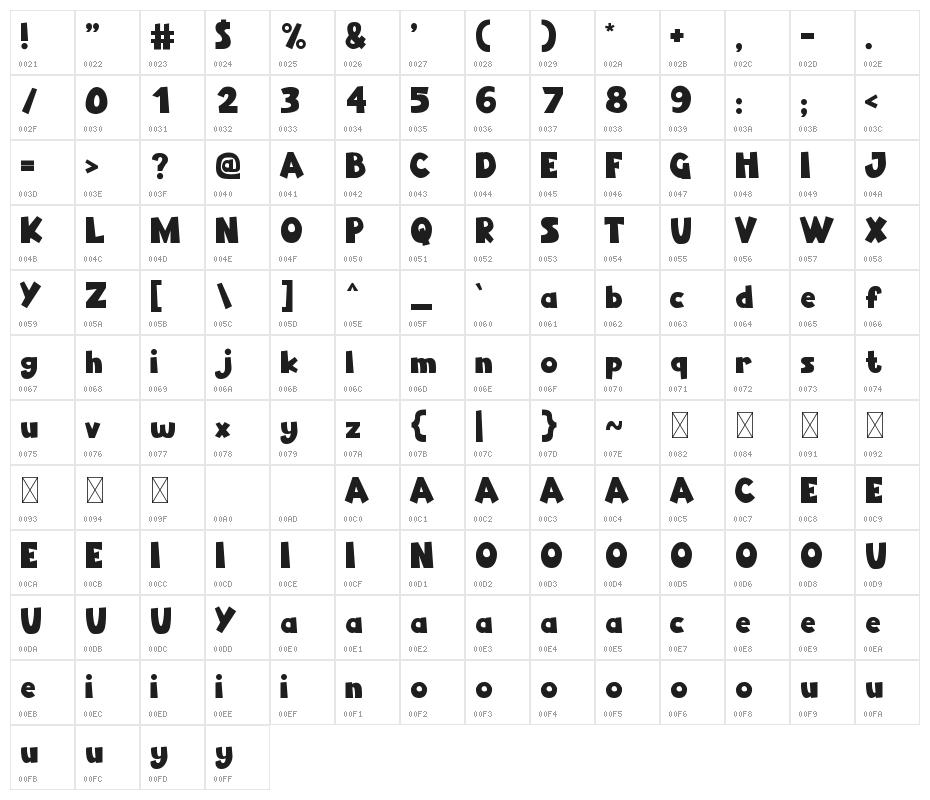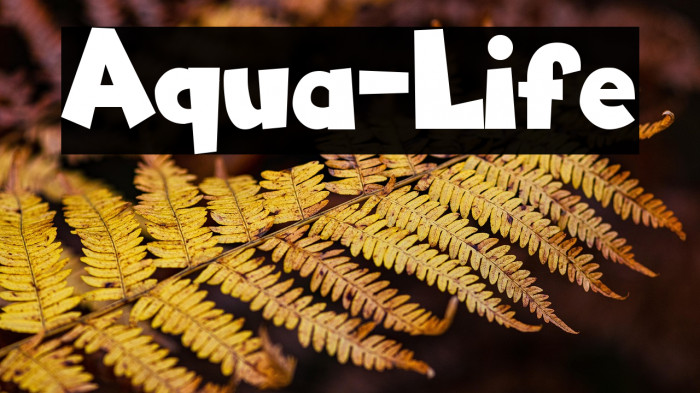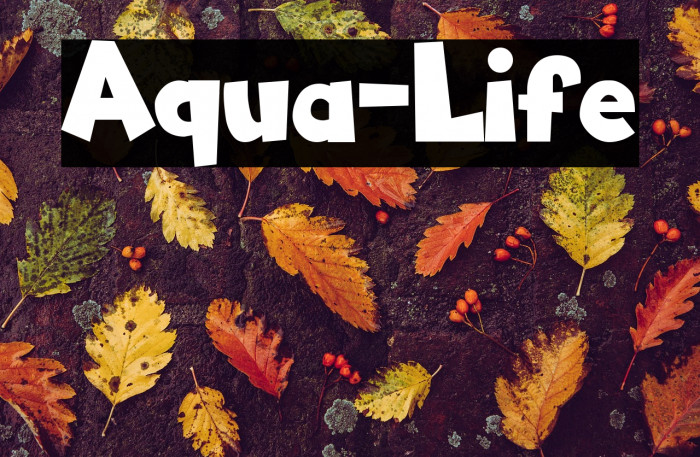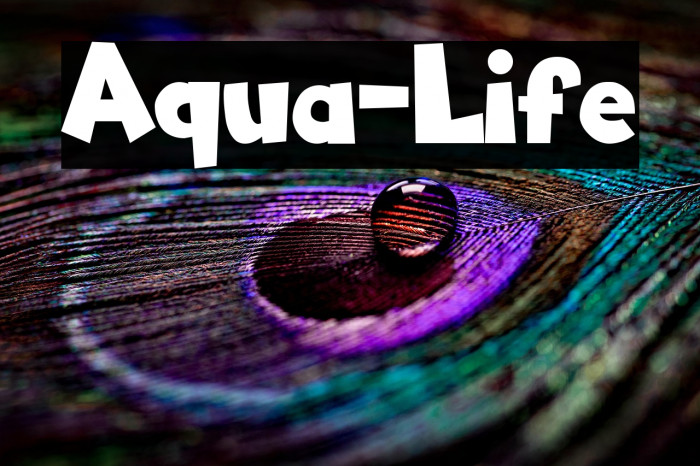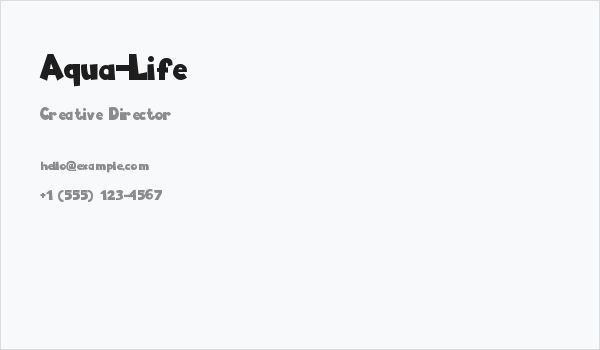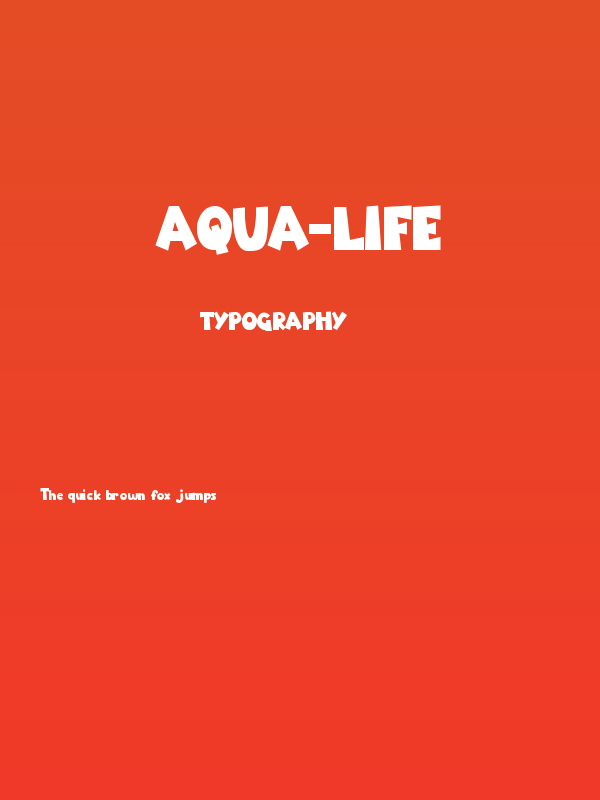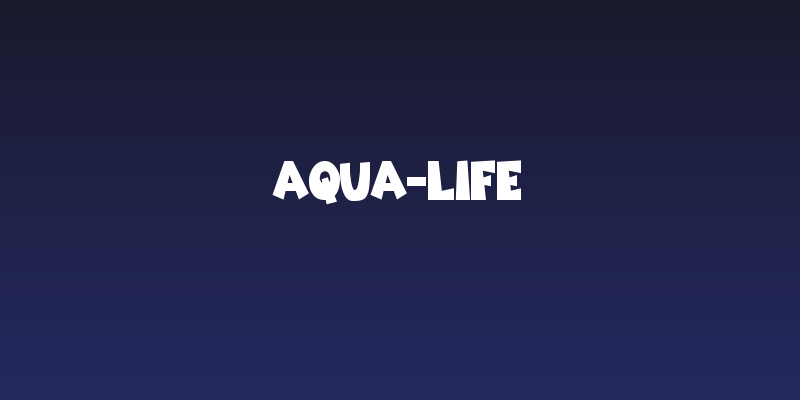
Aqua-Life Font
Aqua-Life Description
This font features a bold and playful design, characterized by its thick, rounded strokes and slightly irregular shapes. The letters have a whimsical, cartoon-like appearance, making them stand out with their unique, almost hand-drawn quality. The uppercase and lowercase letters maintain a consistent style, with a slight tilt that adds to the dynamic feel of the font. The numbers and special characters follow the same playful theme, ensuring a cohesive look across all text elements. This font's boldness and distinctive style make it ideal for projects that require a fun and engaging visual impact.
| Overall Style | Playful, Cartoon-like |
| Proposed Projects | Ideal for children's books, playful branding, posters, and creative advertisements. |